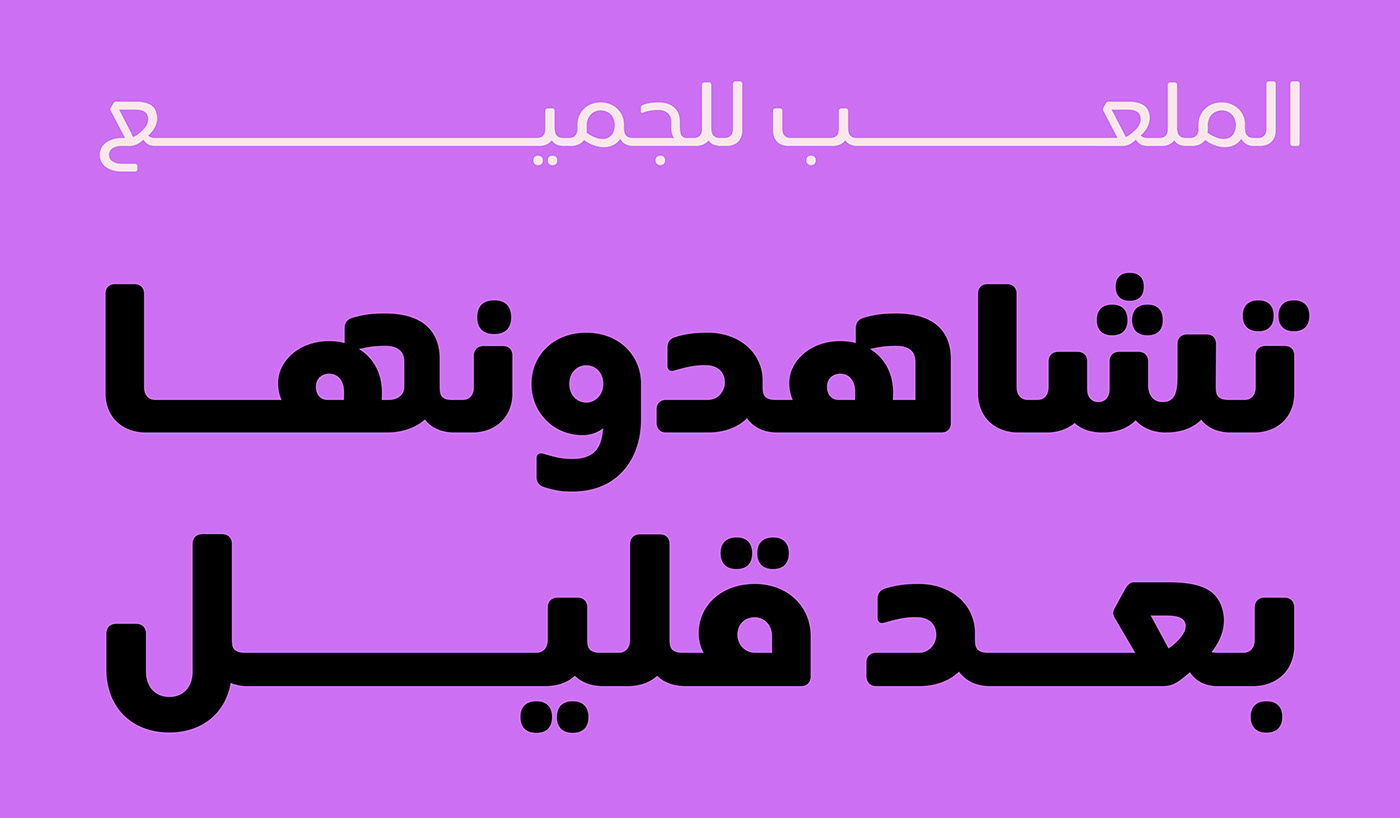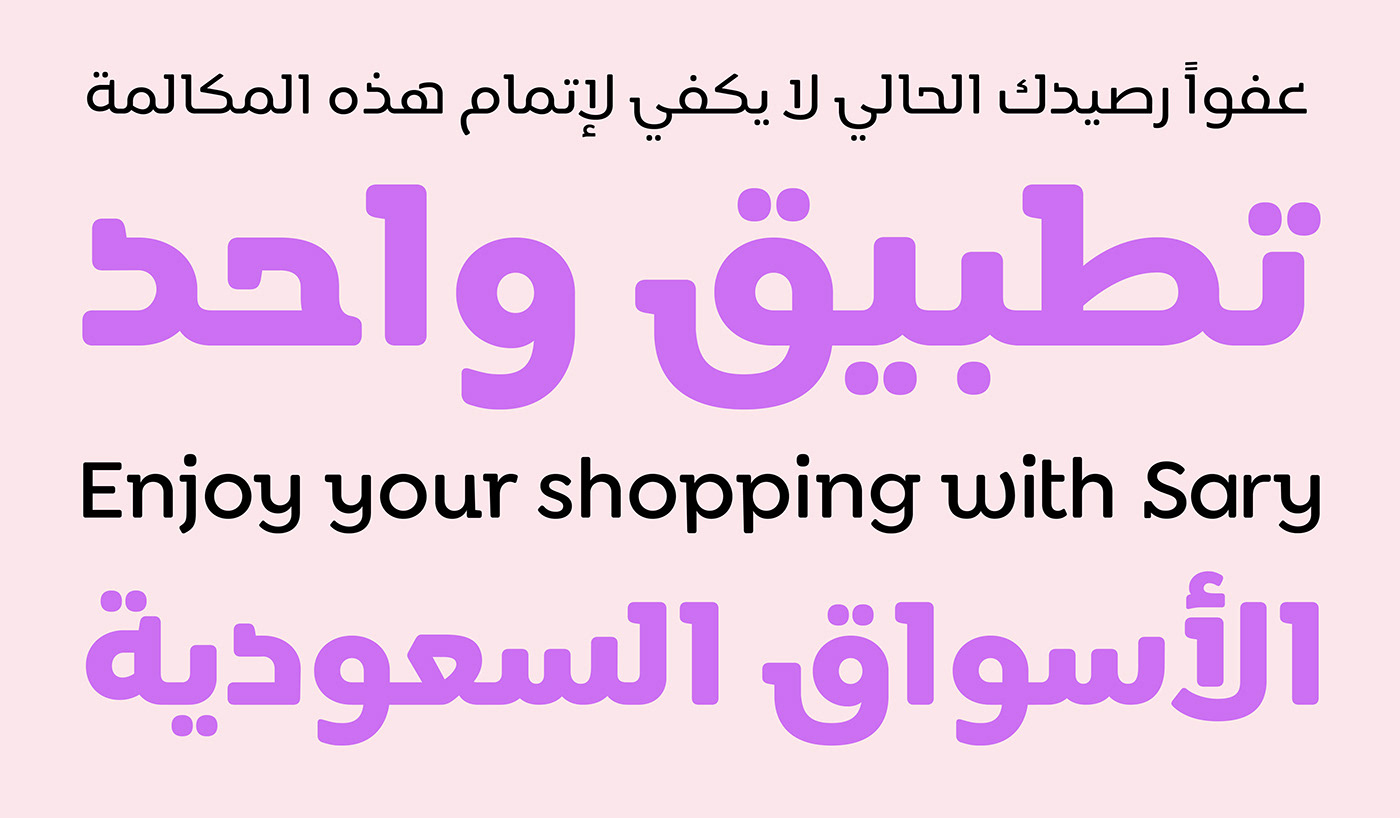
Sary is a custom typeface for sary app, and a big part of the brand identity, with flexibility in weights and styles to match body text and headlines usage, with a big library of characters to support 91 languages, Designed specially to reflect the brand persona.
Sary comes with 9 sans-serif weights, and 9 serif weights to match all usage of the identity, with several of Opentype features:
contextual alternates, Fractions, Ordinals, Tabular Figure, Case Sensitive, Stylistic set 01, 02, and 03, and wide range of ligatures.
Supported Languages: Arabic, Urdu, Persian, Western Europe, Central/Eastern Europe, Baltic, Turkish..... etc.
Designed at 2019